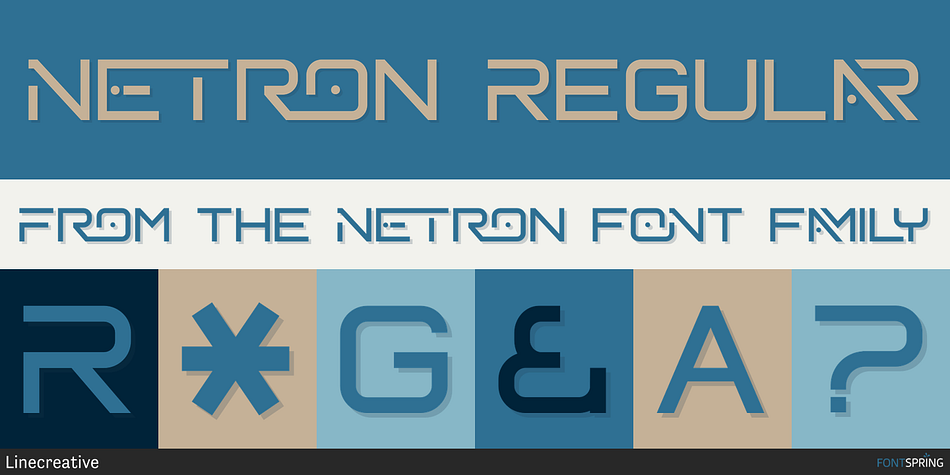
Netron Regular
Designed by Ari Juanda, Netron is a display sans font family published by Linecreative.
Neutron Minimal futuristic typeface,designed with minimal lines to keep it simple and artistic. It gives your texts modern smart effects.
This font is equipped with ligature and alternative letters will be very good for your work such as posters, logotypes, magazines, covers, banners, t-s/}{hirts and headers, or even large-scale artwork.
Netron- A clean San serif font including Upper & Lowercase characters(ALL CAPS),
Ligatures Character(187 characters) & Stylistic alternates Character (39 Character)